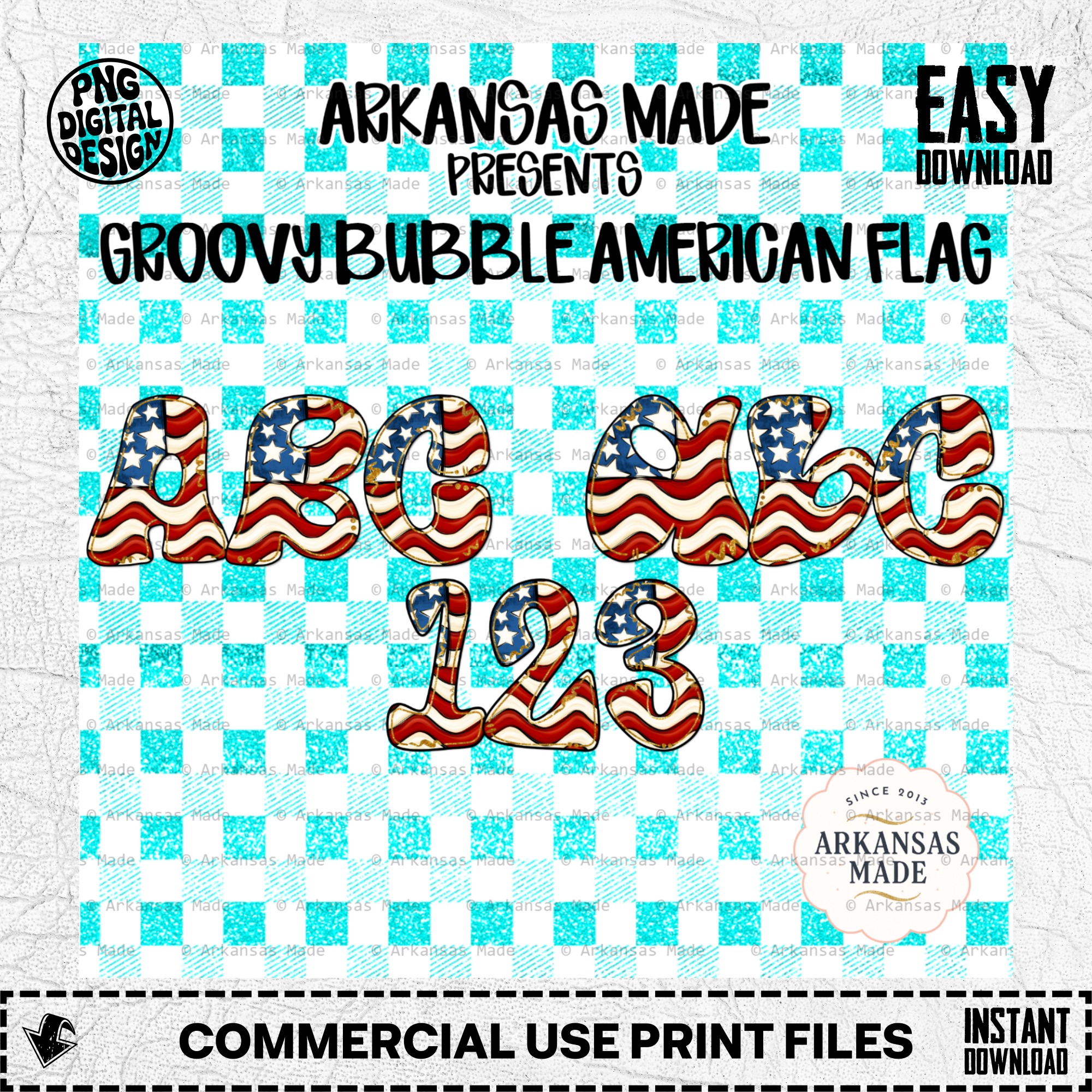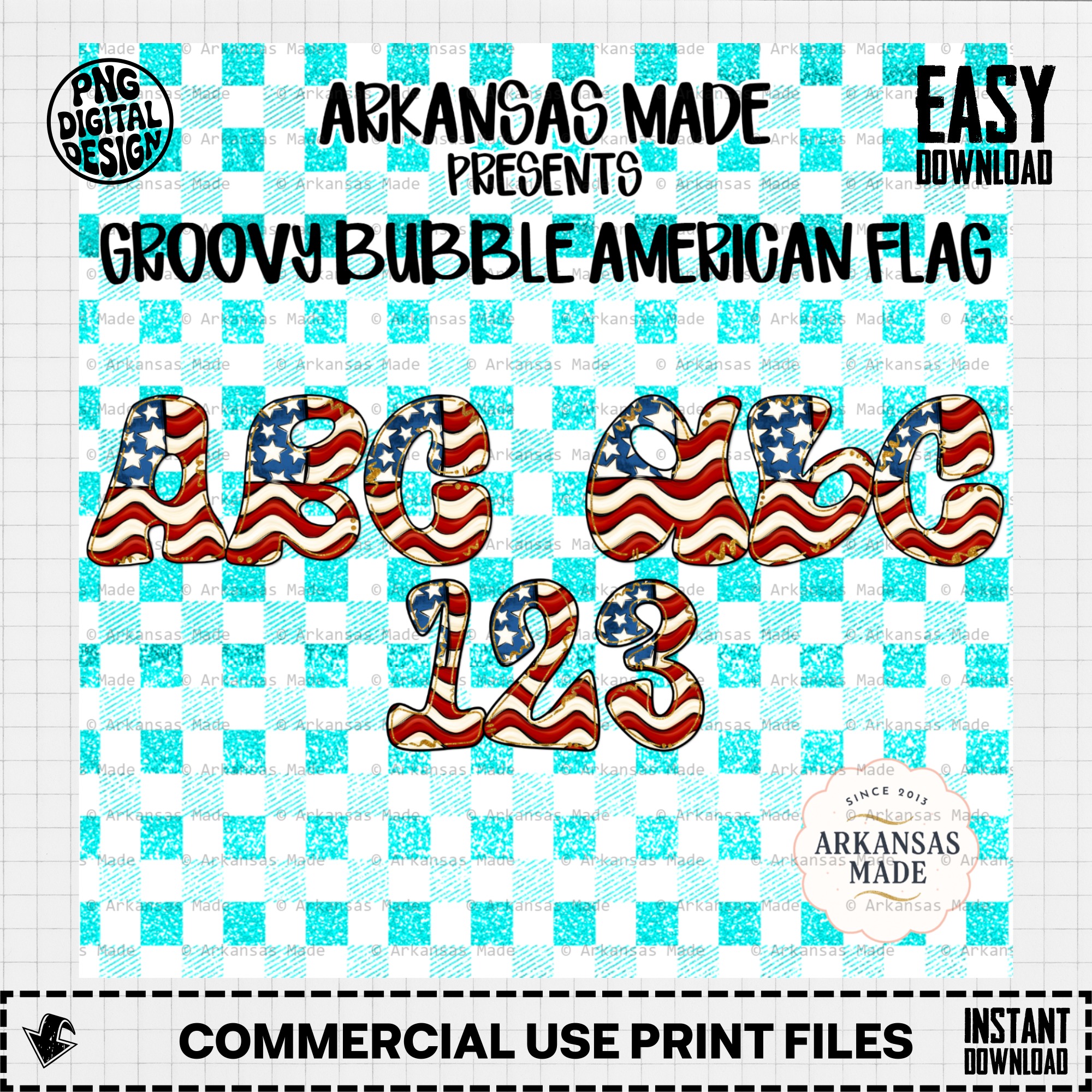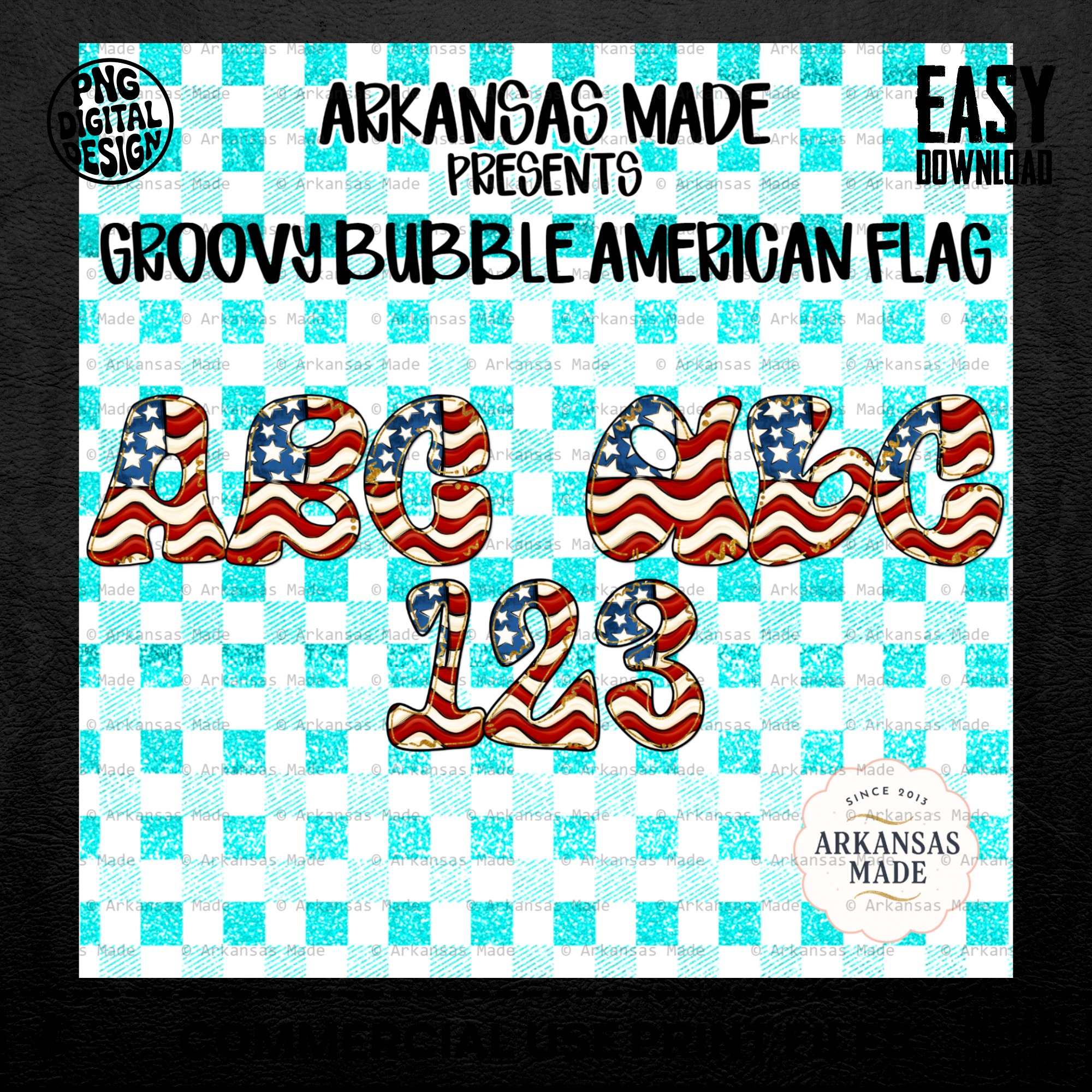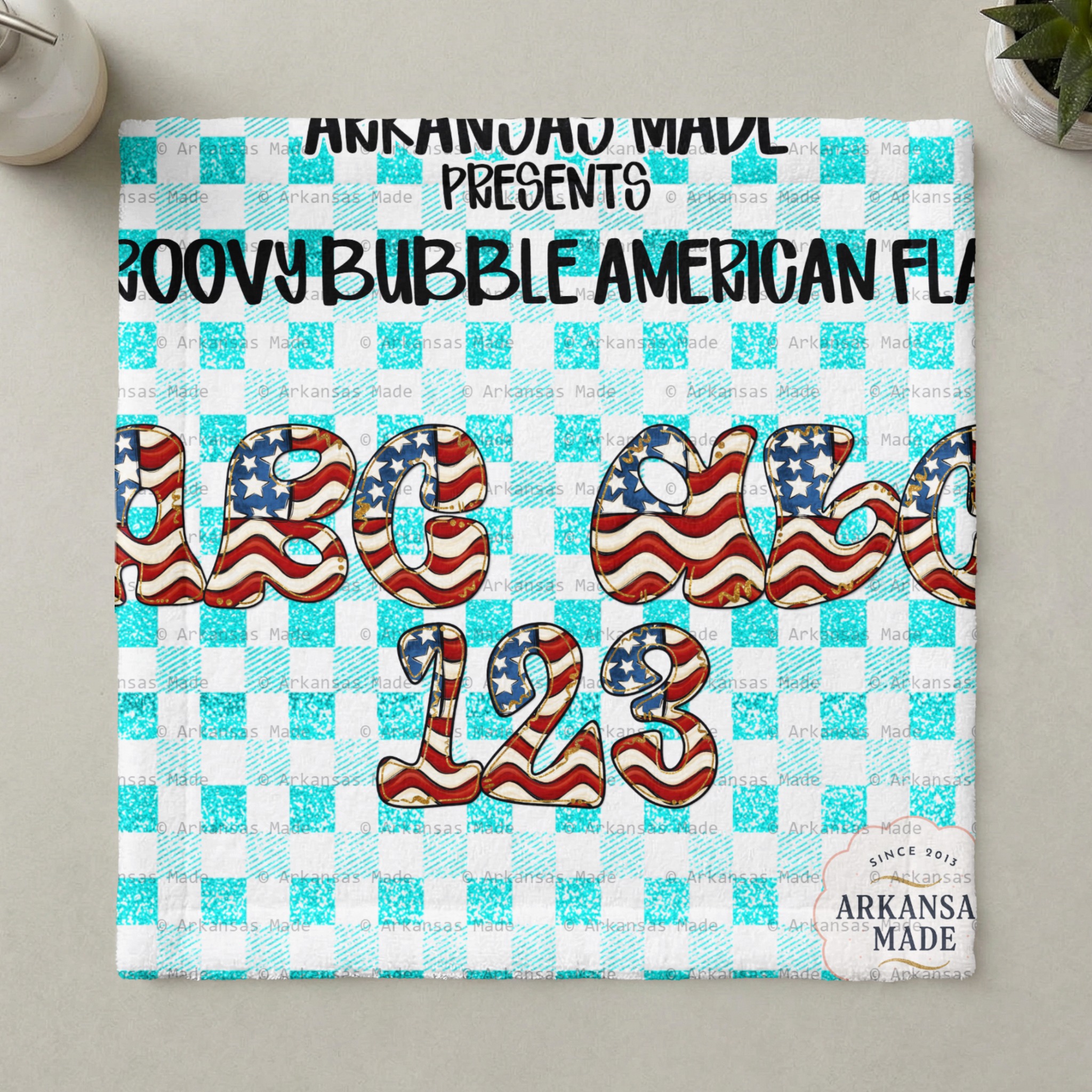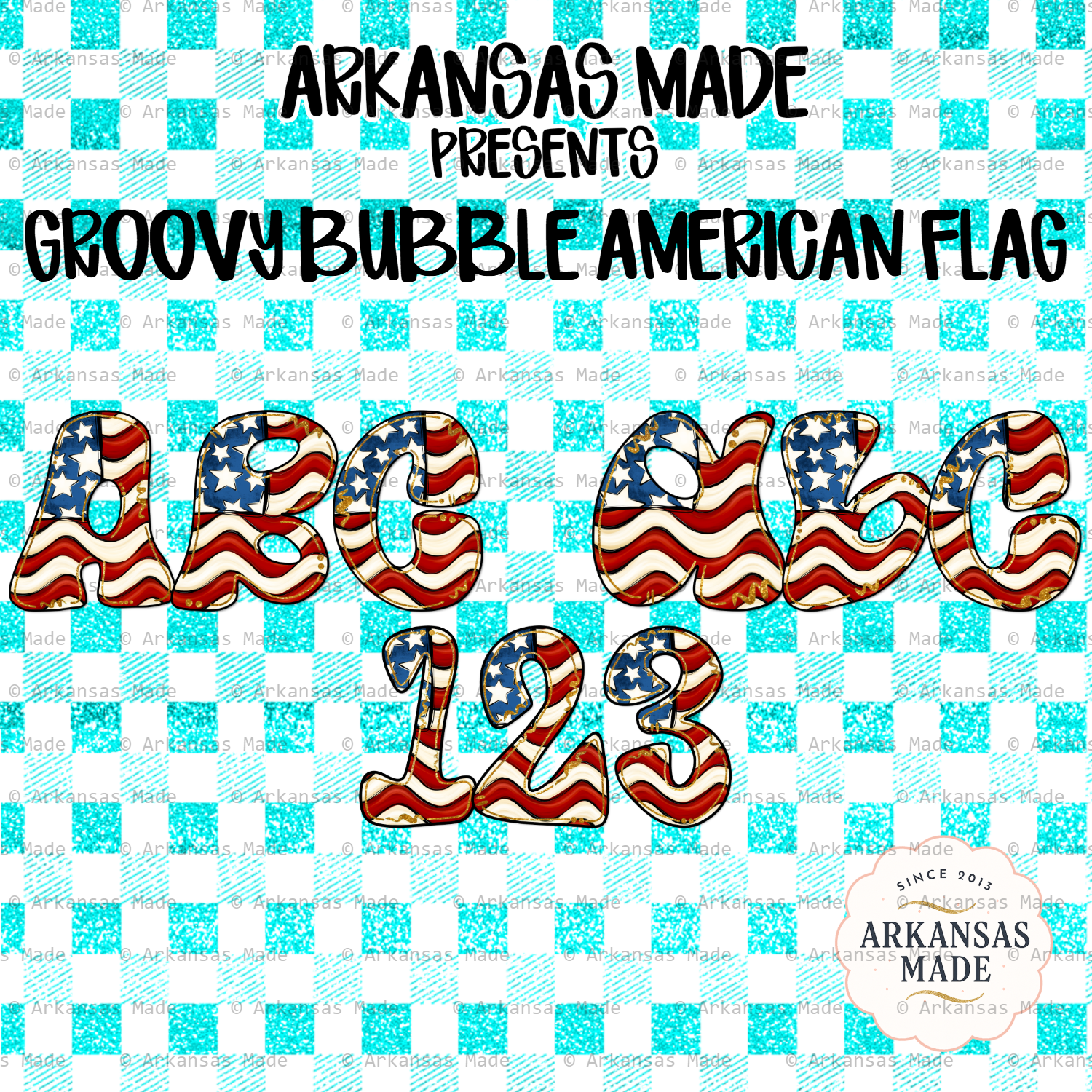
Dive into summer with our Groovy Bubble American Flag ABC 123 Digital Alpha PNGs! Perfect for patriotic projects, this retro sublimation design offers instant download. Embrace the spirit of Americana with these playful bubble letters and numbers, featuring a vibrant American flag pattern with a faux gold printed outline. Ideal for crafters, DIY artists, and small business owners creating custom apparel, mugs, signs, or party decor. Celebrate the Fourth of July, Memorial Day, or any patriotic event with this versatile, eye-catching design.